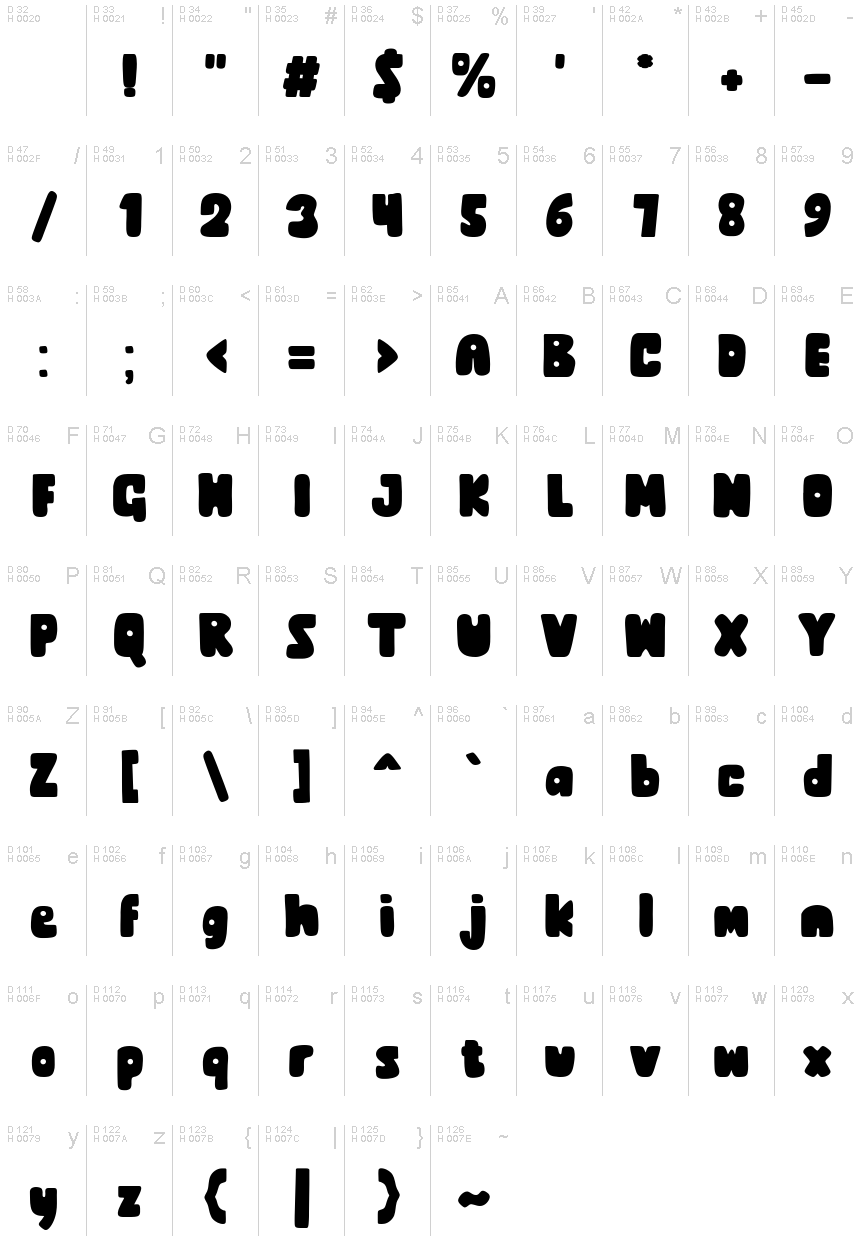
Old Palinama - Demo
Old Palinama font by Tera Asset Garage exudes a playful charm that instantly captures attention. This bold, cartoon-style display typeface features exaggerated character shapes, infusing designs with a sense of whimsy and fun. Its generous proportions and round edges create a friendly appeal, making it perfect for conveying light-hearted messages.
Visually striking, Old Palinama stands out in titles, signage, or children’s media where vibrancy is key. The font’s unique playfulness lends itself beautifully to branding projects that seek to evoke joy and creativity. Whether used in posters, packaging, or digital platforms, this distinctive typeface ensures that any text resonates with warmth and personality, inviting engagement from its audience.